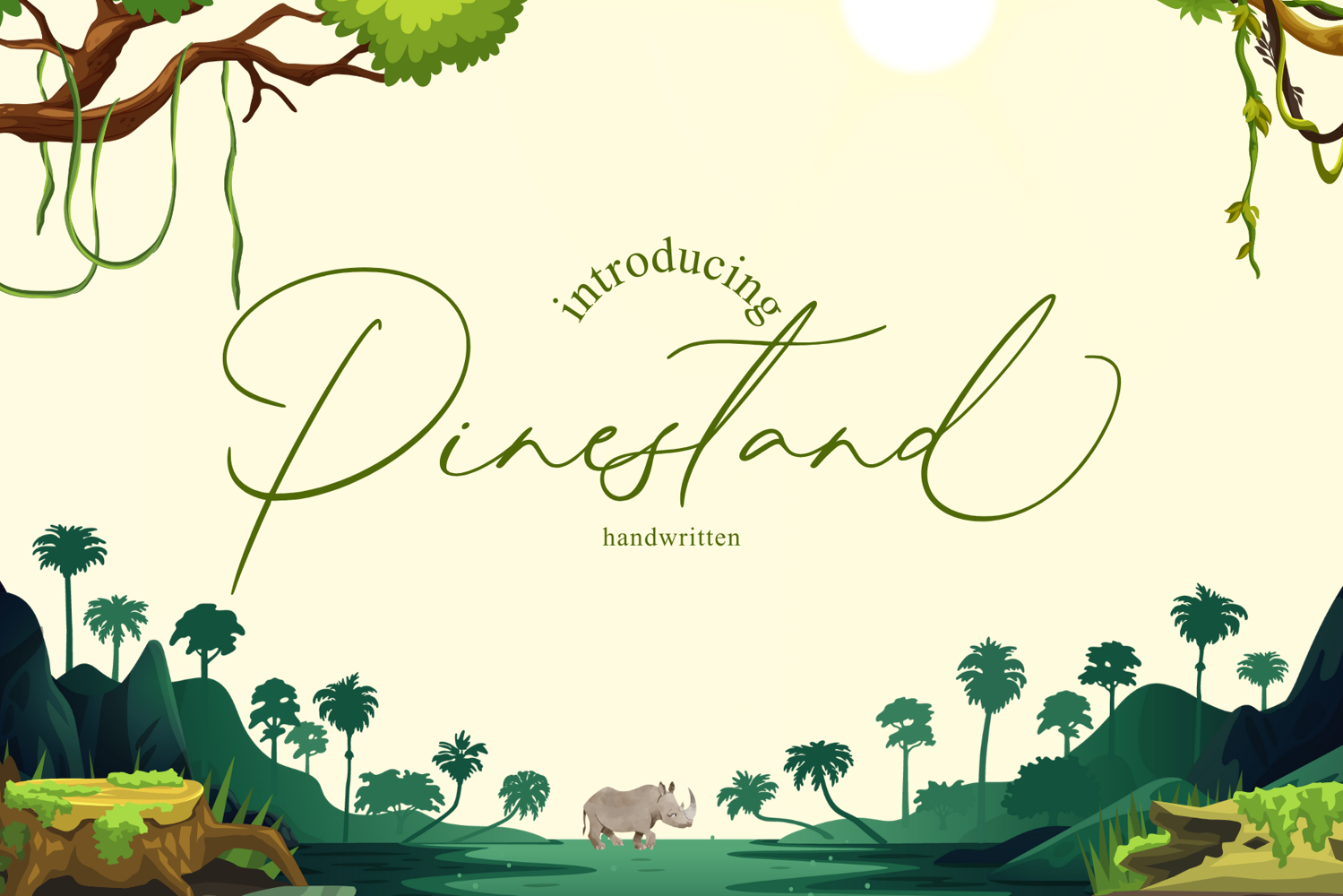
Pinestand
Pinestand is a beautifully crafted handwritten font that exudes elegance and natural charm. With flowing curves and delicate strokes, it brings a sense of warmth and authenticity to any design. Inspired by the simplicity of nature, "Pinestand" evokes the serene and peaceful imagery of pine trees swaying in the wind, making it perfect for a wide range of projects from invitations and branding to individual stationery and modern designs. The font captures a perfect balance between fluidity and legibility, giving your projects an inviting, handwritten touch.